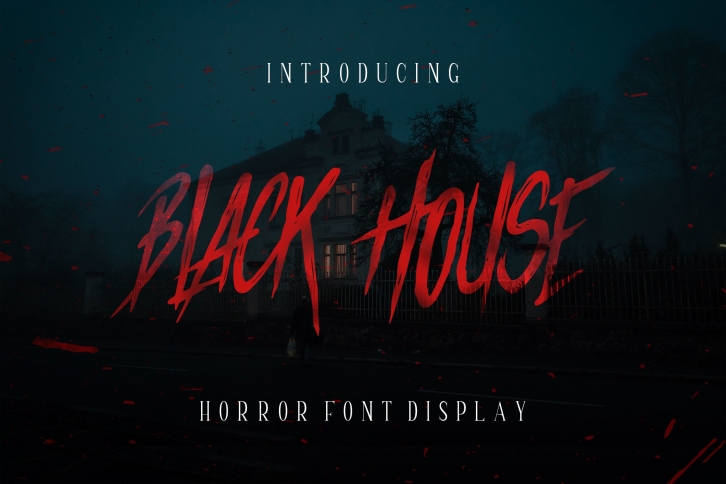
Black House is a gory and provocative display font that can be used for multiple chill-inducing projects like movie posters, Halloween decorations, Halloween party invitations, advertising and much more.